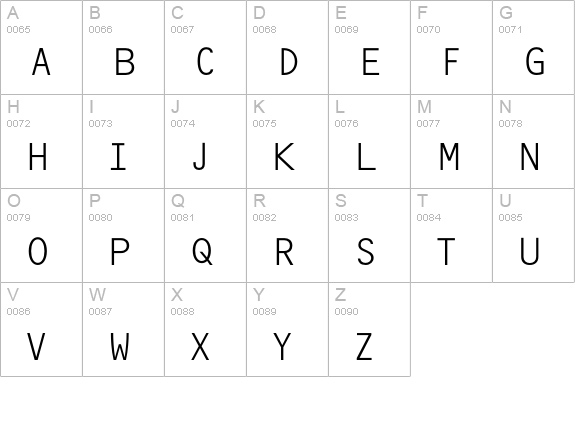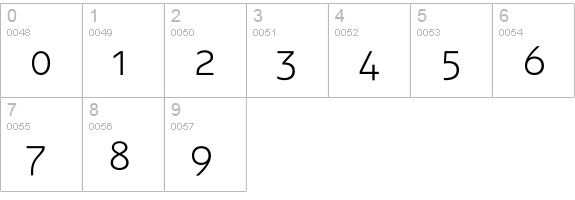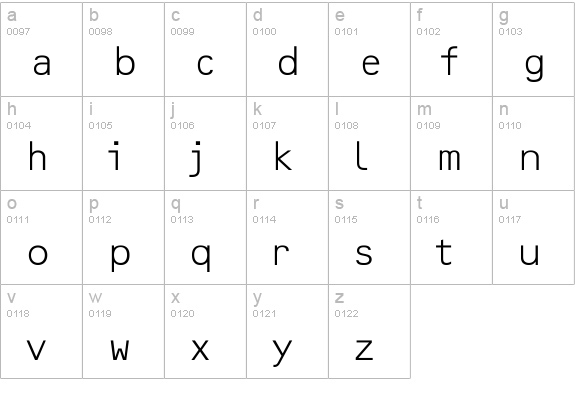
OCRF-LightOSF is a modern and versatile font that combines a sleek design with excellent readability. This font is perfect for various design projects, from branding to editorial layouts. The crisp and clean lines of OCRF-LightOSF make it a great choice for both digital and print applications. The font features OpenType Small Caps and is well-suited for use in body text as well as headlines. The best part about OCRF-LightOSF is that it is completely free to download at FontsMarket.com. Whether you are a designer looking for a reliable font to add to your collection or a student working on a project, OCRF-LightOSF is a fantastic choice. Don't miss out on this opportunity to enhance your designs with this high-quality, free font. Download OCRF-LightOSF today and elevate your creative projects to the next level.